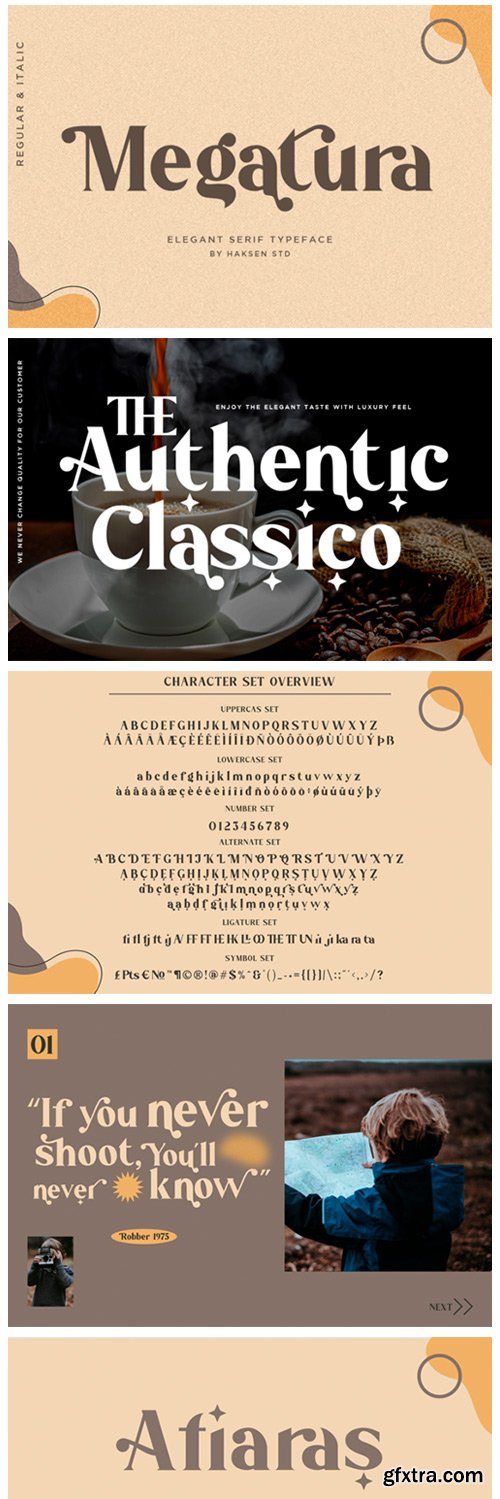
Megatura Font
Megatura is a bold and elegant serif font. Its wide range of stylistic alternates allows versatile design options and works perfectly for headlines, logos, posters, packaging, T-shirts, postcards and much more.